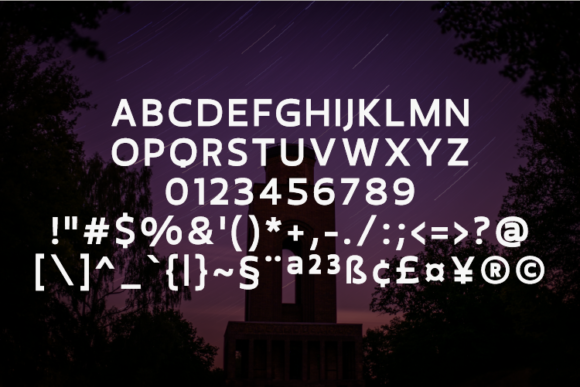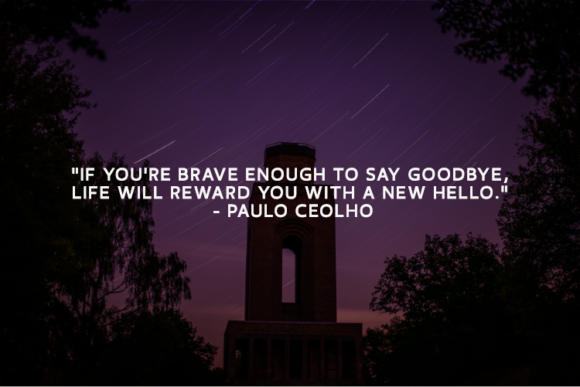
Introducing Beather Font: Elevate Your Designs with a Minimal and Neat Sans Serif
Are you on the hunt for a font that can effortlessly elevate your creative projects? Look no further than Beather Font, a stunning sans serif font that is as minimal as it is neat. With its clean lines and versatile design, Beather is the perfect addition to any designer’s toolkit. In this article, we’ll dive into the world of Beather Font, exploring its features, benefits, and uses, as well as providing tips on how to make the most of this incredible font.
Aesthetic Appeal of Beather Font
Beather Font boasts a sleek and modern design that is sure to capture the attention of your audience. Its sans serif style gives it a clean and minimalist look, making it perfect for a wide range of projects, from branding and advertising to packaging and digital media. The font’s neat and organized structure ensures that your text remains clear and legible, even at smaller sizes.
Versatility of Beather Font
One of the standout features of Beather Font is its incredible versatility. Its simple yet stylish design makes it an excellent match for an incredibly large set of projects. Whether you’re working on a corporate identity, a website, or a social media campaign, Beather Font can easily be adapted to suit your needs. Its neutral tone ensures that it won’t overpower your message, allowing your content to take center stage.
Benefits of Using Beather Font
So, what are the benefits of using Beather Font in your designs? Here are just a few:
- Improved Readability: Beather Font’s clear and legible design ensures that your text is easy to read, even at smaller sizes.
- Enhanced Aesthetic Appeal: The font’s sleek and modern design adds a touch of sophistication to any project.
- Increased Versatility: Beather Font can be used in a wide range of projects, from digital media to print materials.
- Time-Saving: With Beather Font, you can quickly and easily create professional-looking designs without spending hours searching for the perfect font.
Tips for Using Beather Font
To get the most out of Beather Font, here are a few tips to keep in mind:
- Pair with Other Fonts: Beather Font pairs well with a variety of other fonts, so don’t be afraid to experiment and find the perfect combination for your project.
- Use in Headings and Body Text: Beather Font is suitable for use in both headings and body text, making it a great all-around font for your designs.
- Experiment with Colors and Textures: Don’t be afraid to get creative with colors and textures when using Beather Font. Its versatility makes it easy to adapt to a wide range of design styles.
Who Can Benefit from Beather Font?
Beather Font is an excellent choice for a wide range of designers and crafters, including:
- Graphic Designers: Beather Font is perfect for graphic designers looking to create professional-looking designs quickly and easily.
- Web Designers: The font’s clean and legible design makes it an excellent choice for web designers looking to create user-friendly and visually appealing websites.
- Crafters and Makers: Beather Font is also a great choice for crafters and makers looking to add a personal touch to their projects.
In conclusion, Beather Font is a minimal and neat sans serif font that is sure to elevate your designs. Its versatility, aesthetic appeal, and ease of use make it an excellent choice for a wide range of projects. Whether you’re a graphic designer, web designer, or crafter, Beather Font is a must-have font that can help you create professional-looking designs quickly and easily. So why wait? Add Beather Font to your creative toolkit today and notice how it makes your designs stand out!